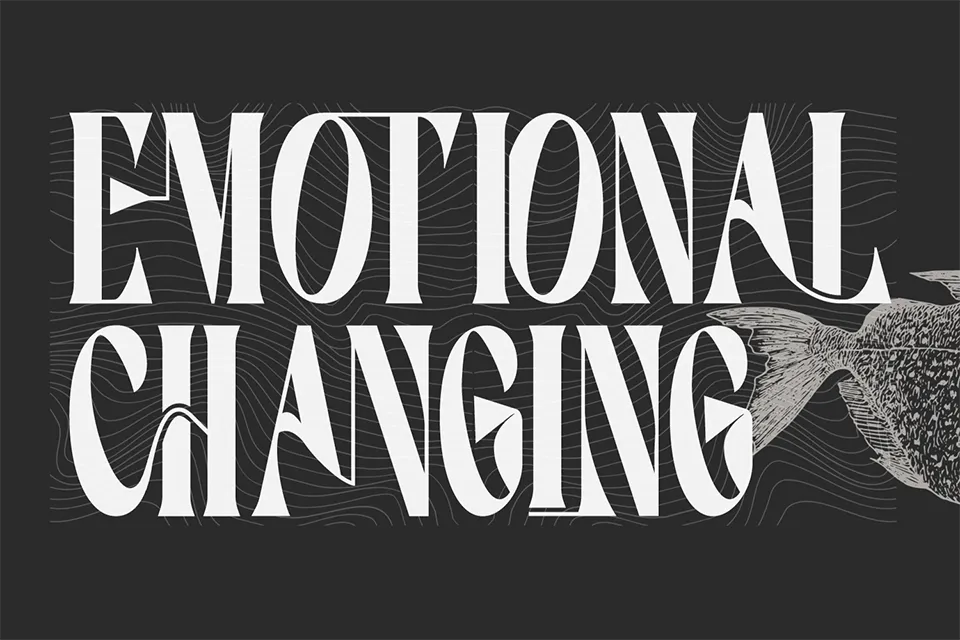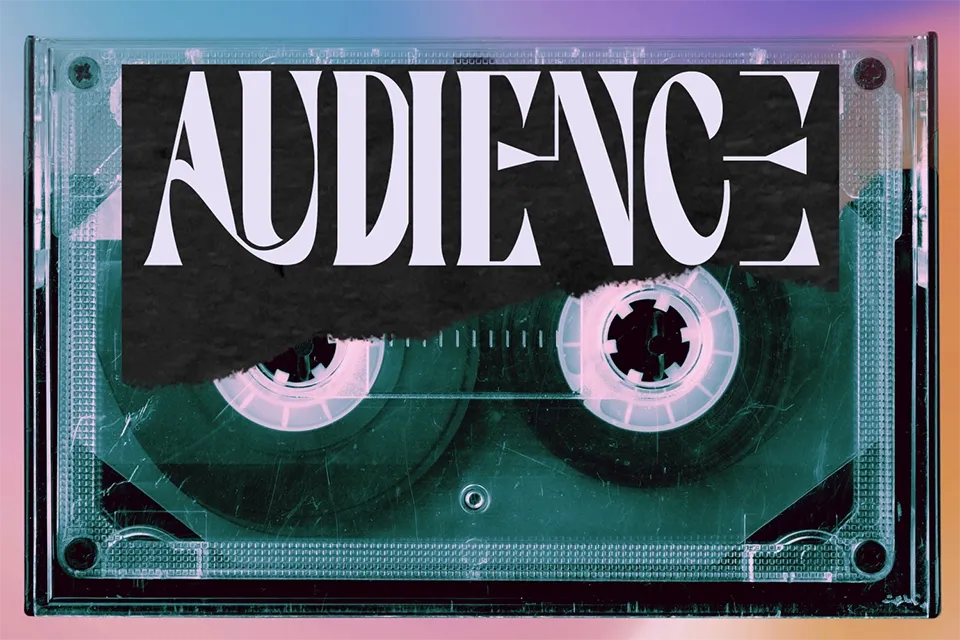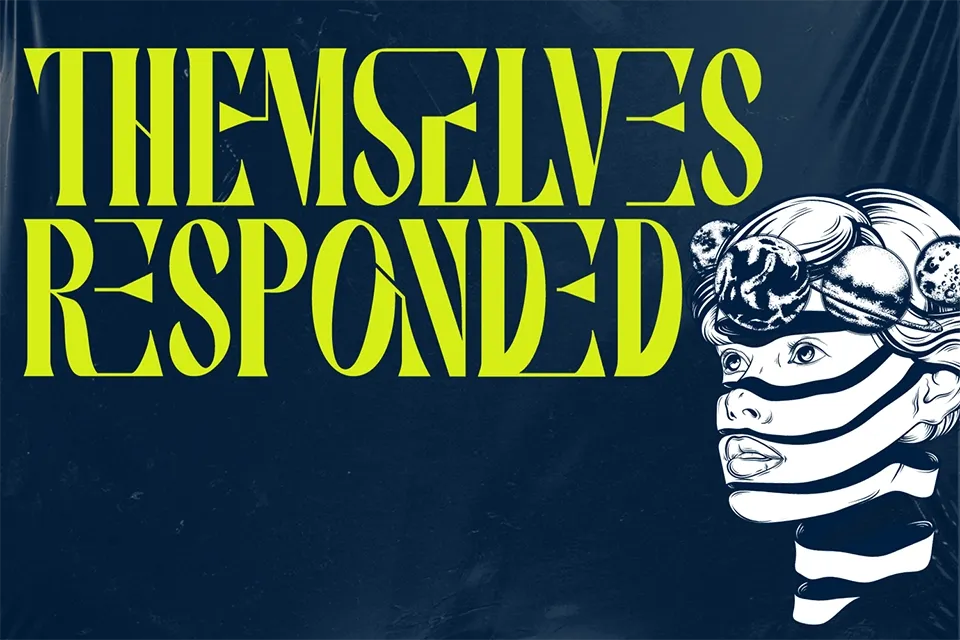
Emotional Changing Font
Emotional Changing Font is a condensed, high-contrast display serif typeface designed for impactful headlines and large short paragraphs. Featuring a bold expansion style that conveys confidence, this font includes a complete set of ligatures, stylistic alternates, numerals, punctuation, and accented characters. With over 100 ligatures and OpenType features, Emotional Changing Font offers designers extensive creative flexibility for customizing layouts and achieving unique typographic effects. It supports multiple languages and is available in both Regular and Light weights.